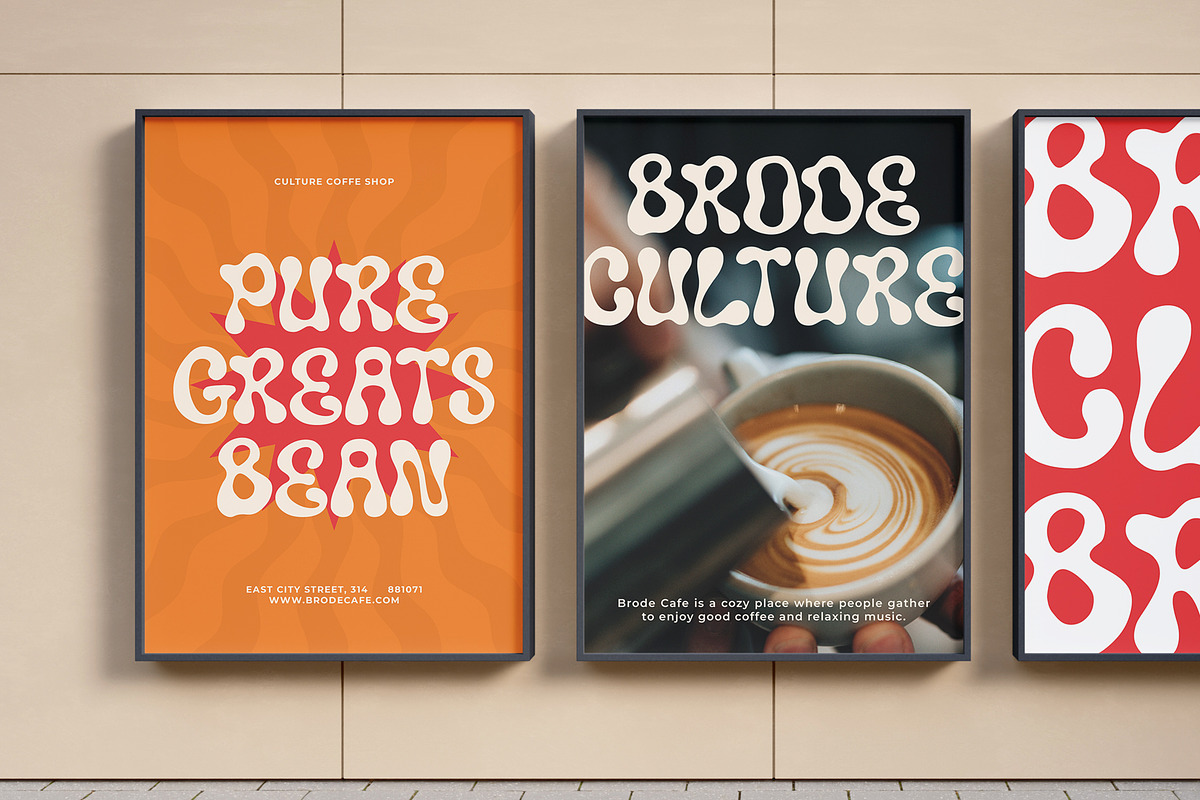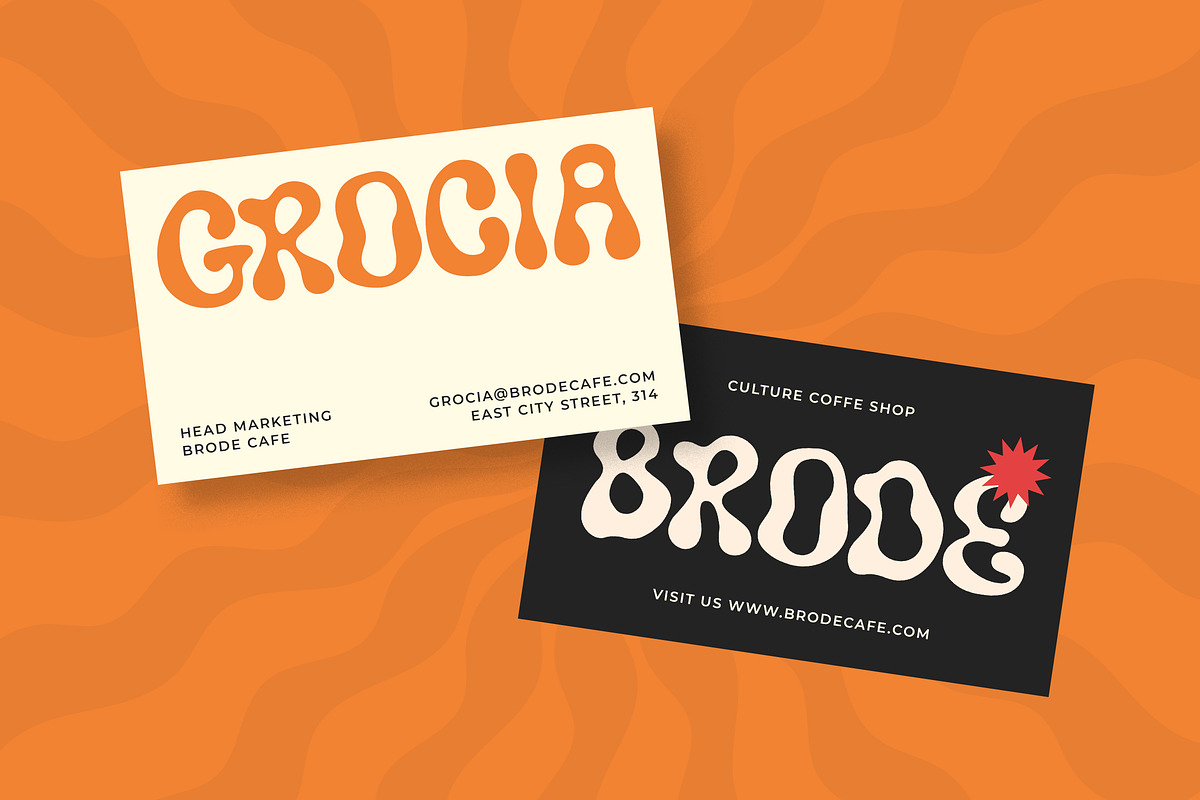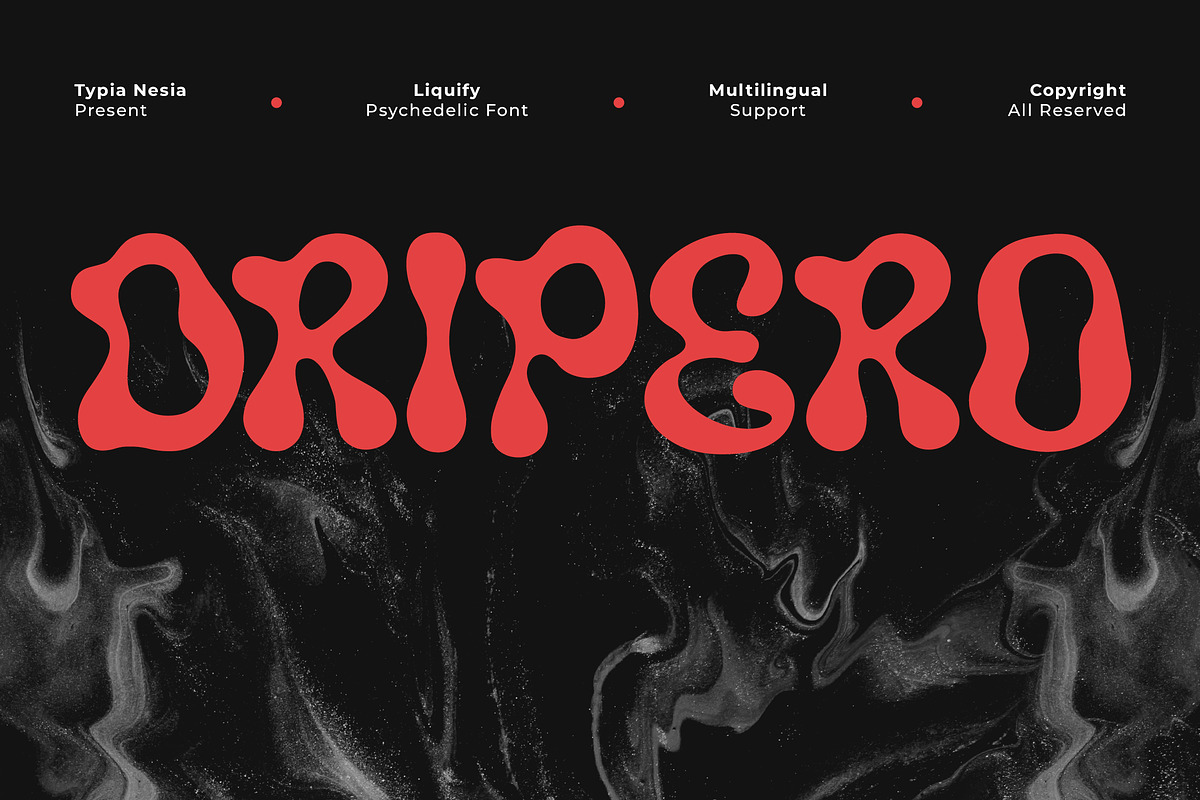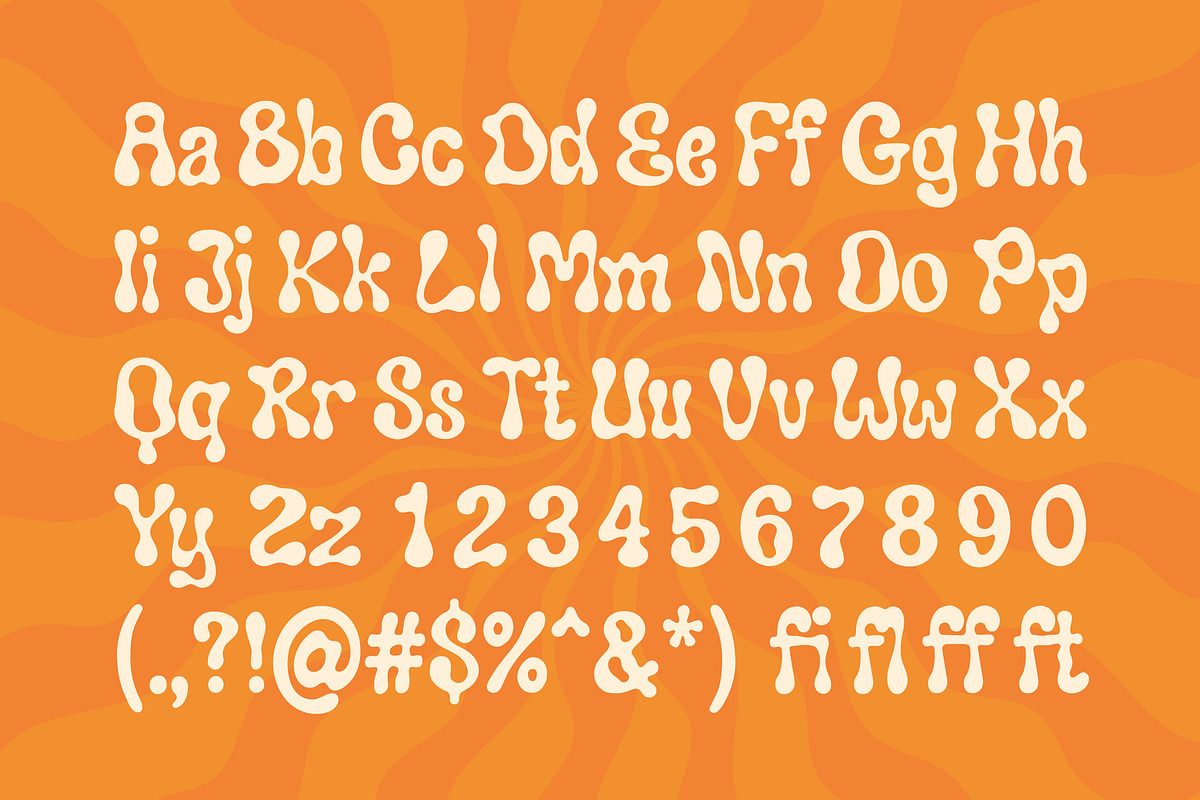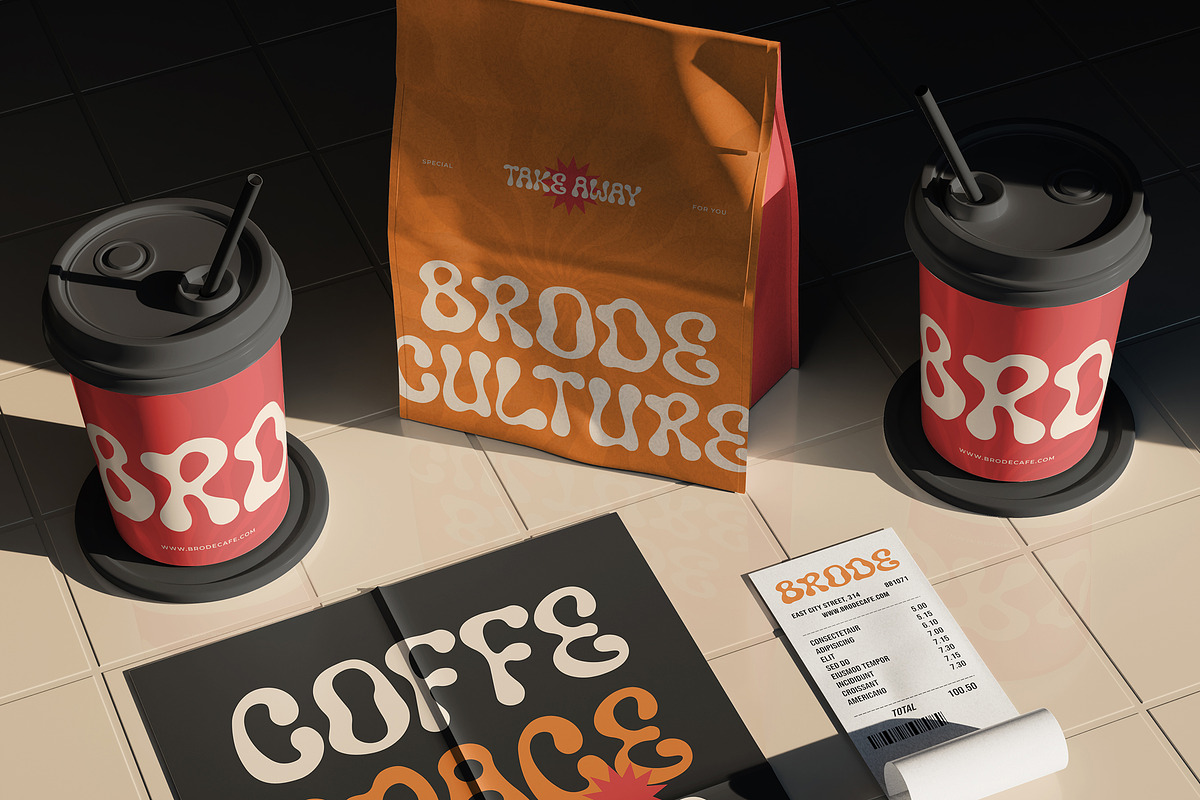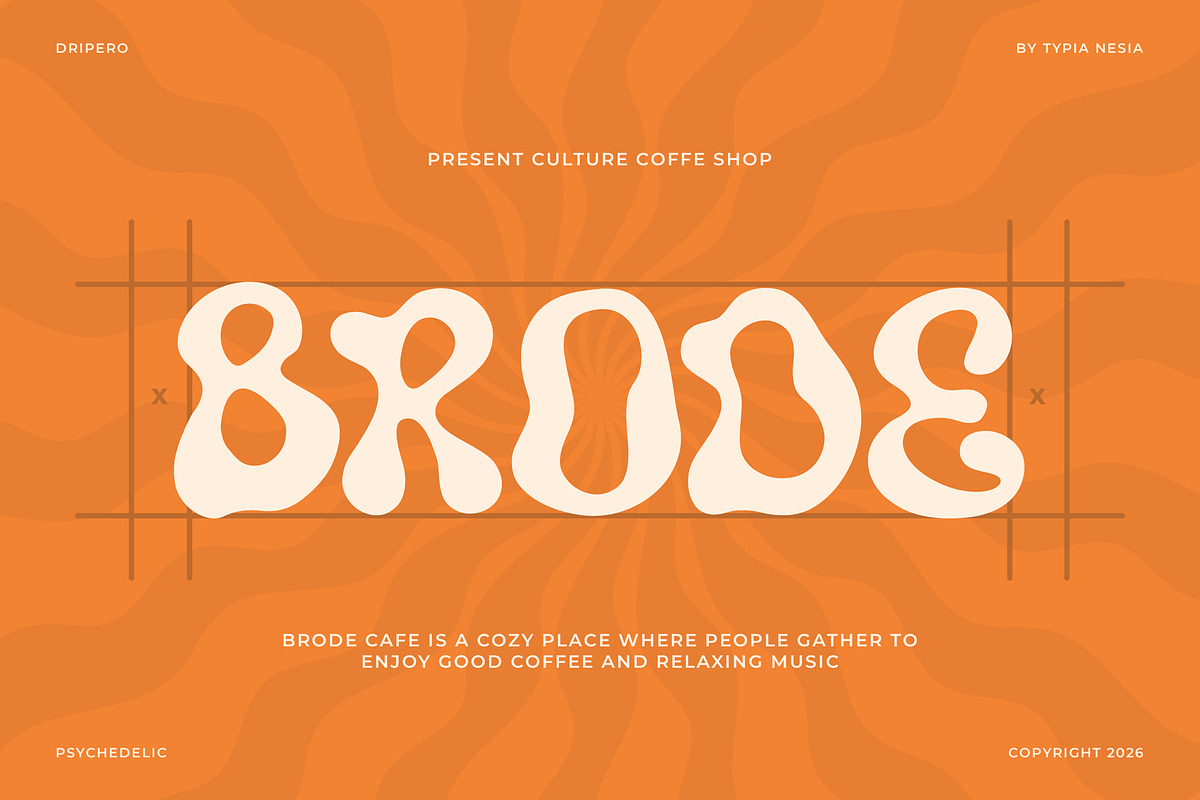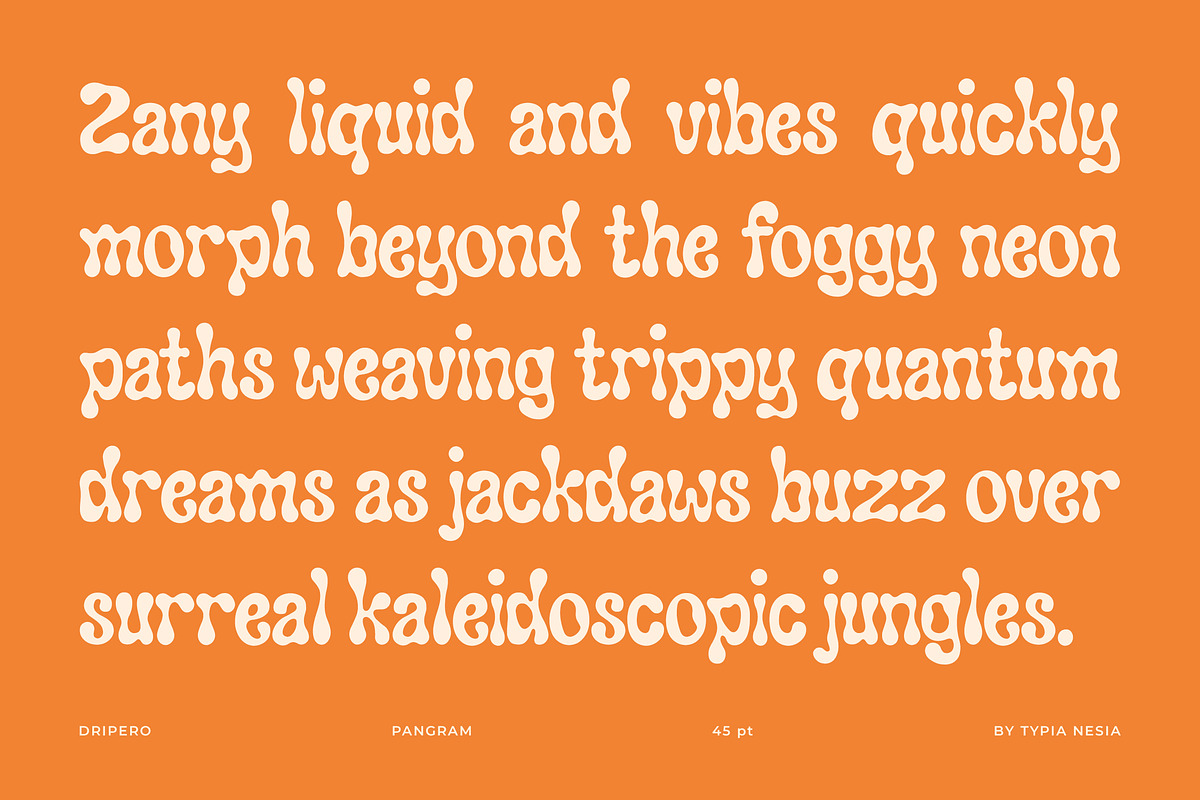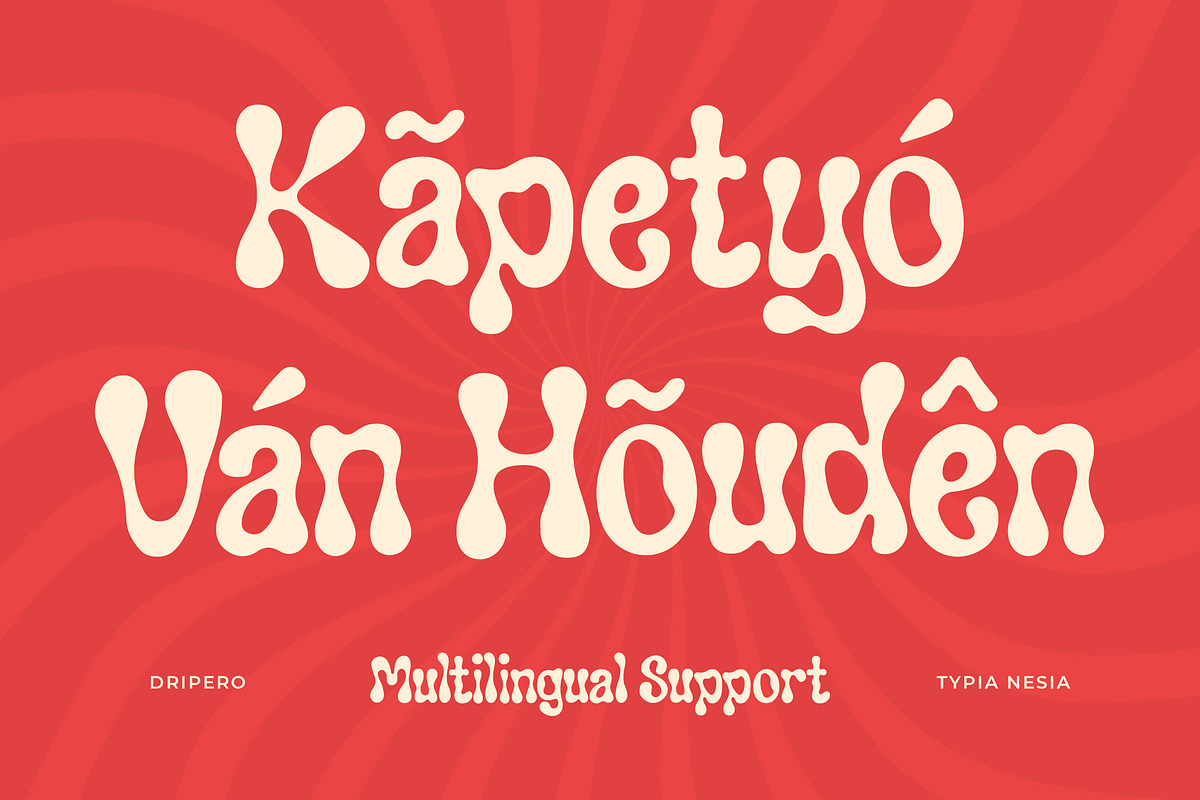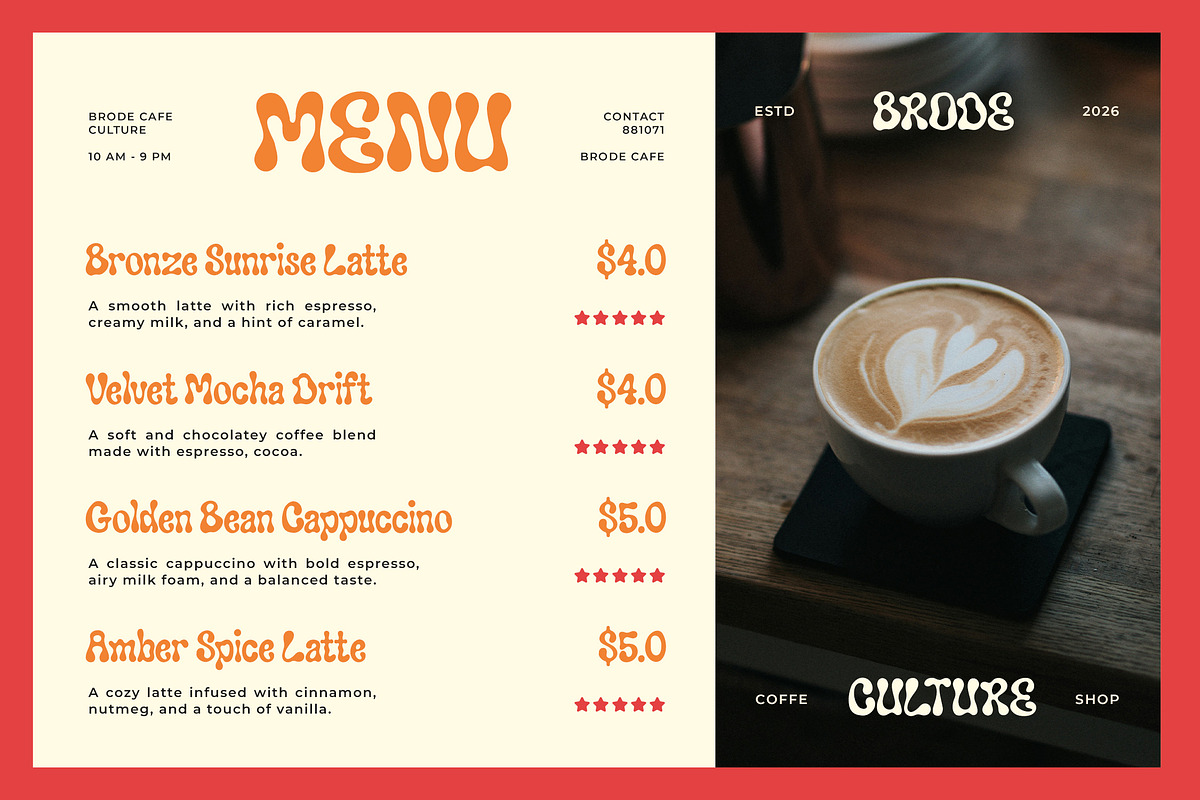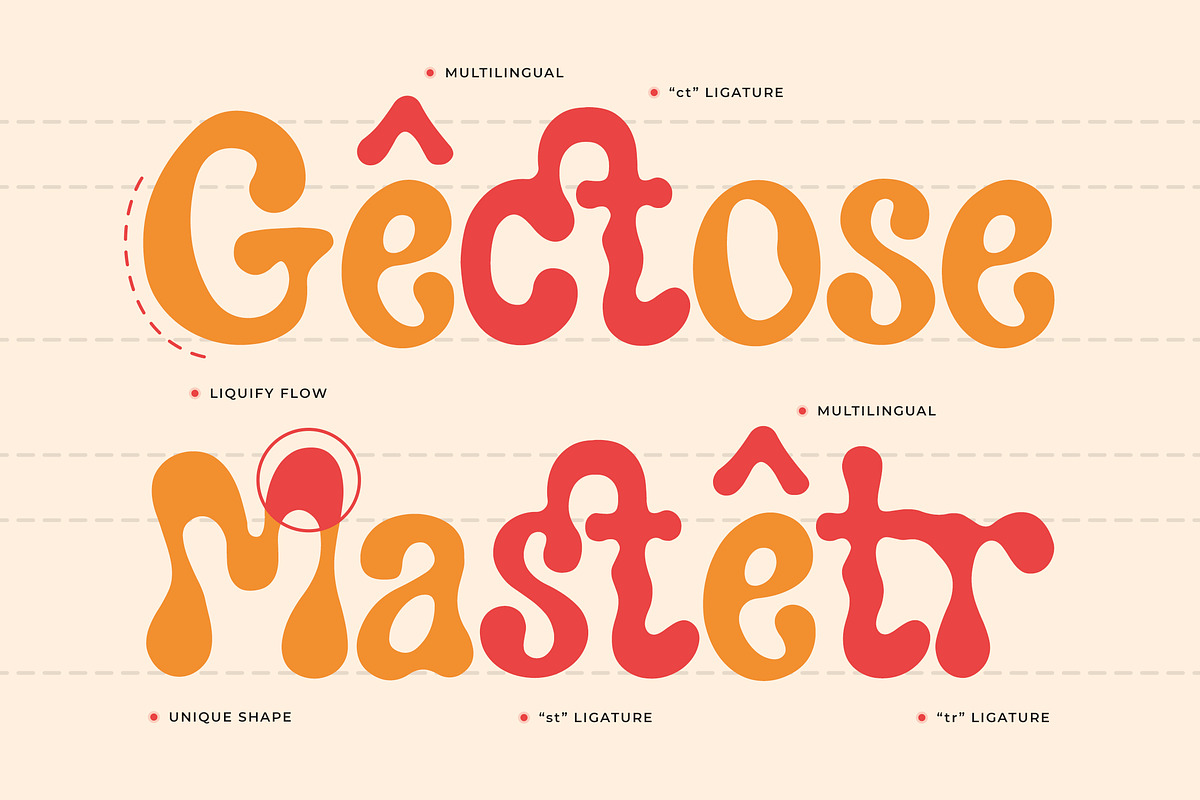
Dripero – Psychedelic Liquify Retro
Dripero – Psychedelic Liquify Retro Font - Groovy Logo Display Font
Dripero is a modern psychedelic liquify retro font inspired by groovy 70s aesthetics, fluid motion, and bold artistic expression. Designed with melting, liquid-like curves and organic shapes, this typeface delivers a funky, retro, and eye-catching style. It is perfect for logo design, music posters, festival artwork, branding, café visuals, K-pop graphics, retro-themed packaging, and any creative project that needs a bold and expressive visual identity. Its dynamic flow creates a strong sense of movement, making every word feel alive and expressive.
Add groovy liquid vibes to your design with Dripero.